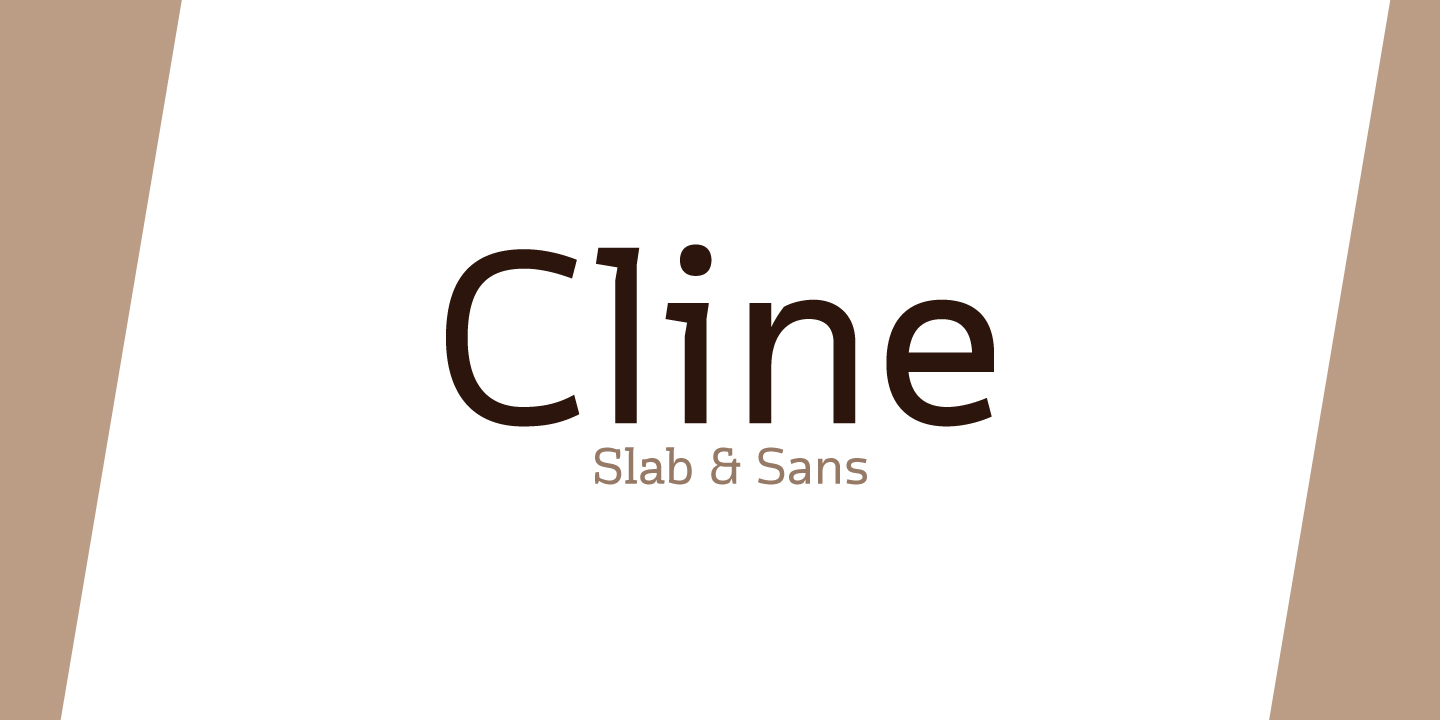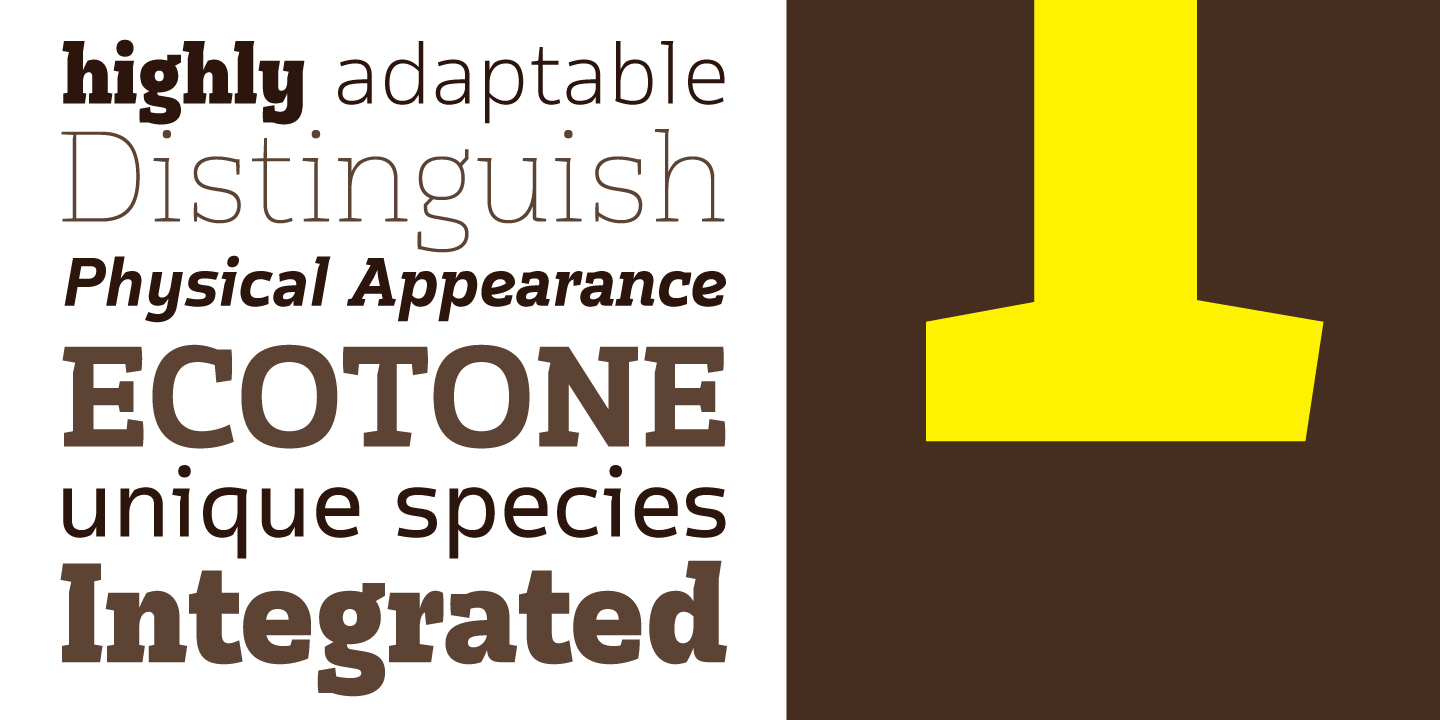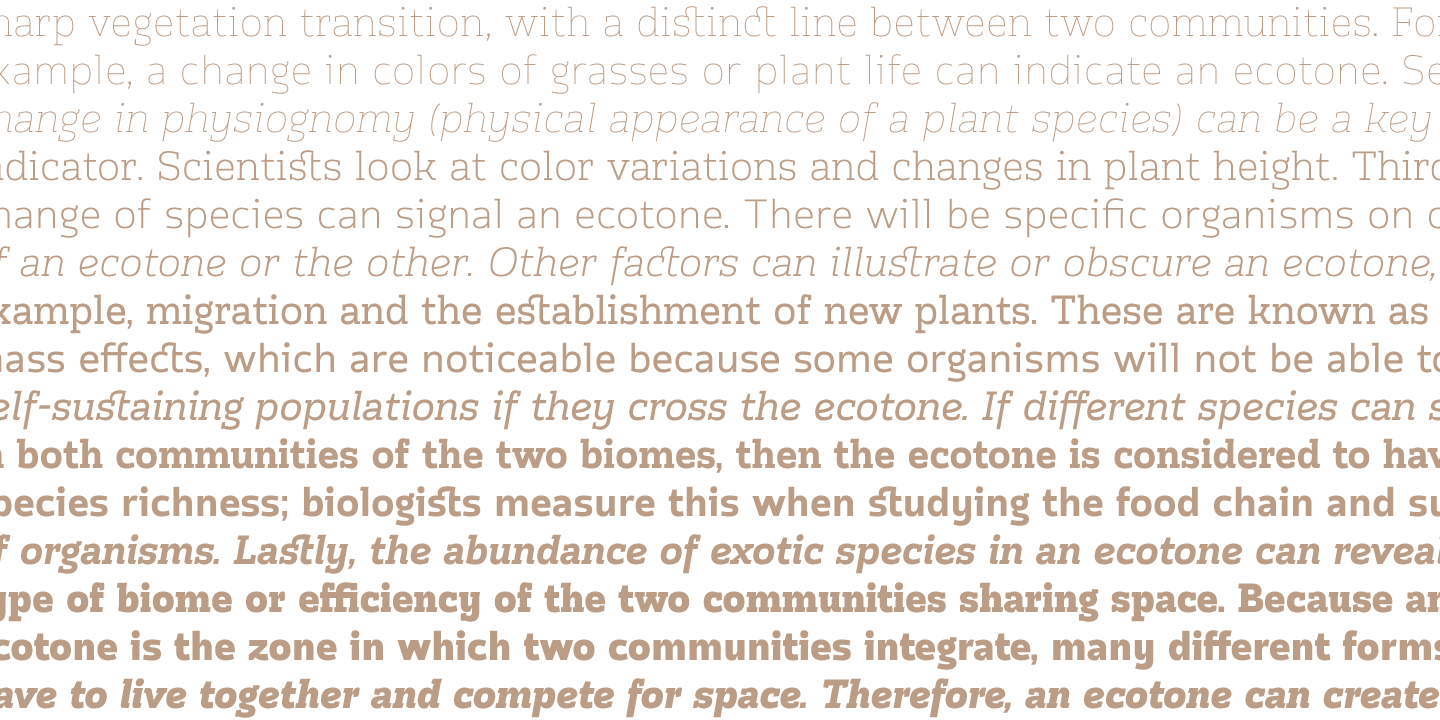
Cline, a family of slab and sans typefaces that seamlessly harmonize with each other. All styles have the same width, so changing font weight will not affect your typesetting. Suitable for both text and headlines.